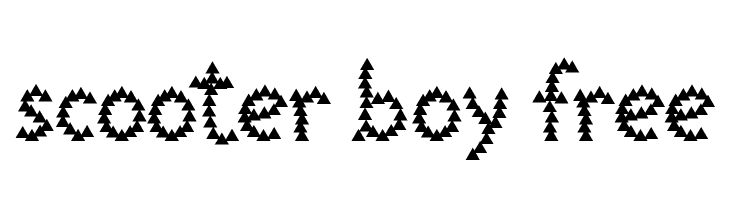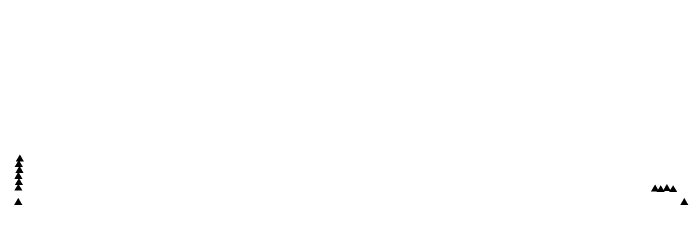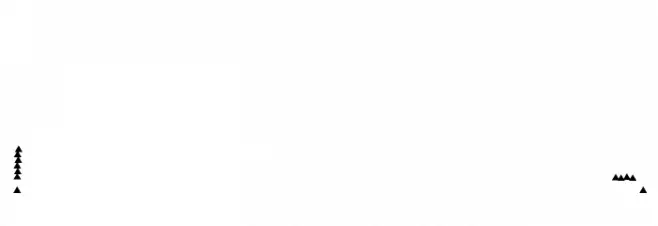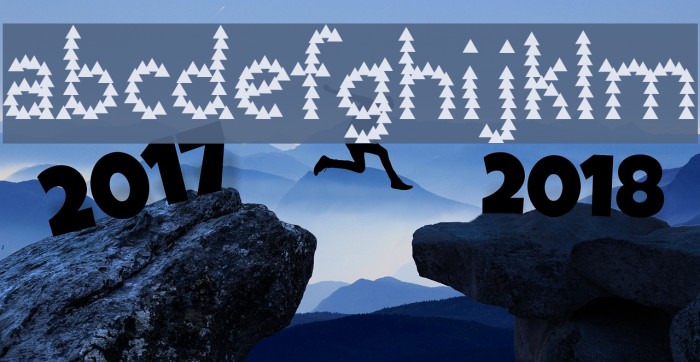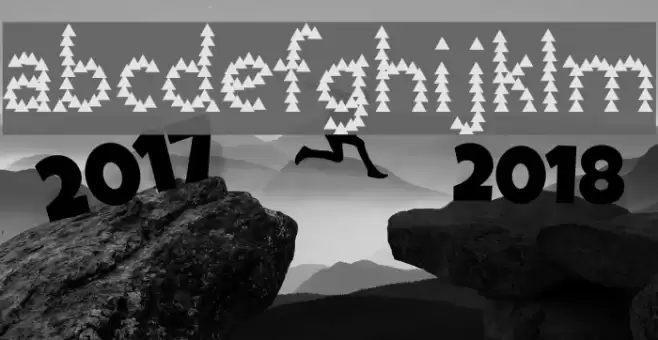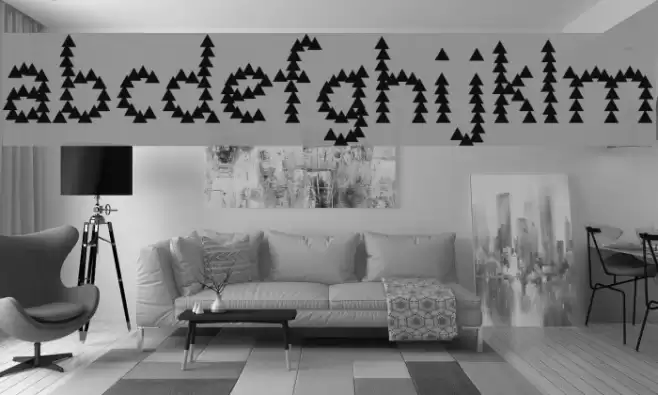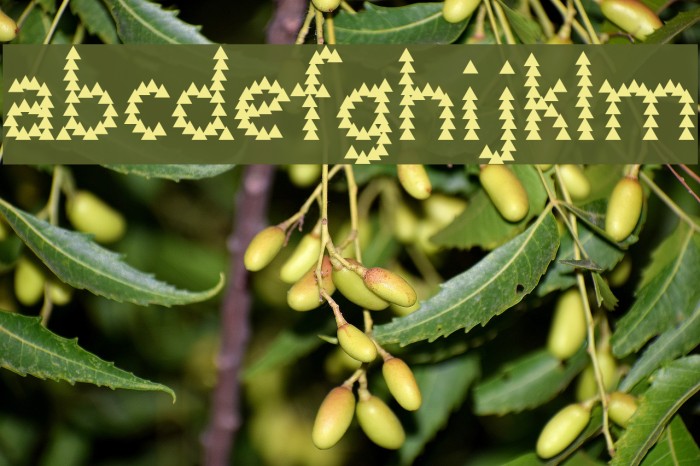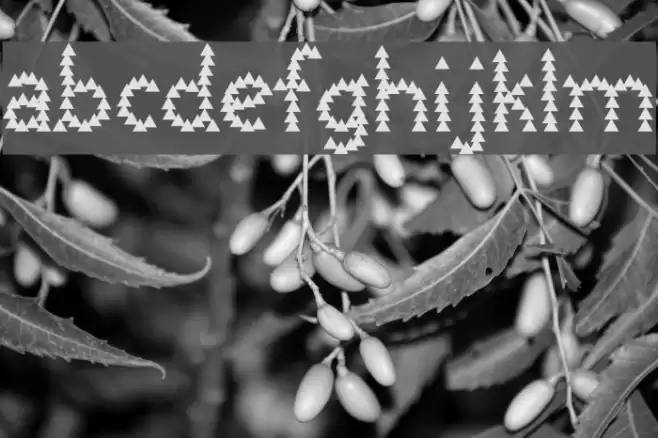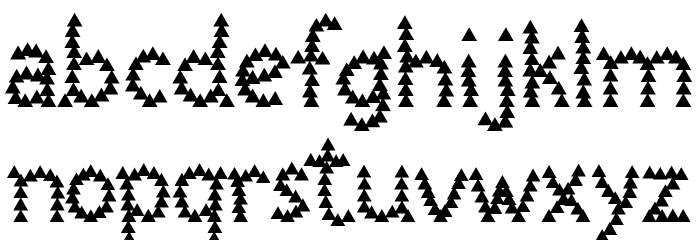
Scooter Boy Free Font
Scooter Boy Free Description
This font features a unique and playful design, characterized by its use of small, triangular shapes to form each letter. The geometric pattern gives it a dynamic and energetic appearance, reminiscent of a mosaic or pixel art. The letters are bold and eye-catching, making it suitable for creative and informal projects. The font maintains a consistent pattern throughout, with each character constructed from a series of repeating triangles, creating a cohesive and visually interesting typeface. Its distinct style makes it stand out, perfect for projects that require a touch of whimsy and creativity.
| Proposed Projects | Ideal for children's book covers, playful posters, or creative branding materials. |